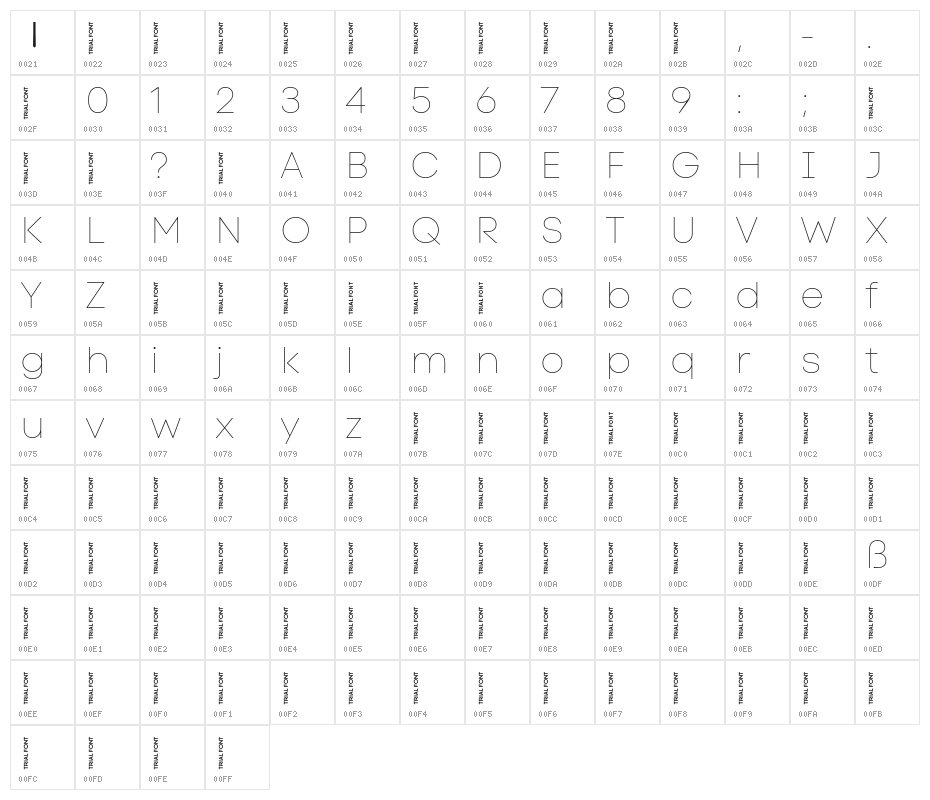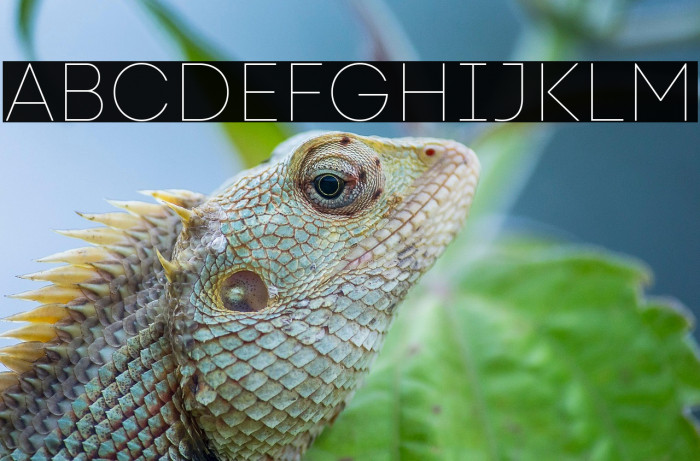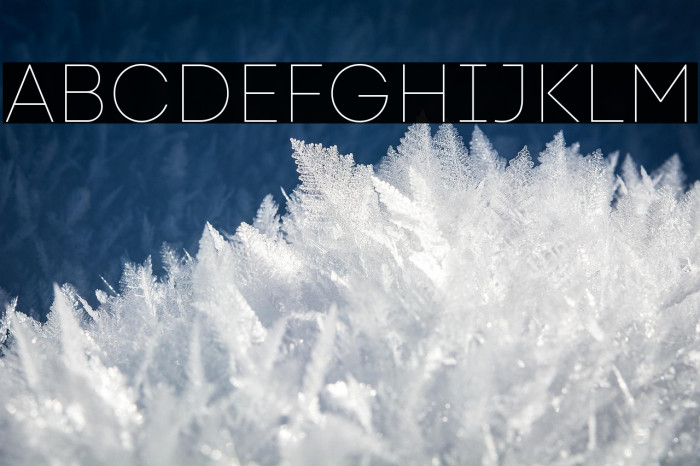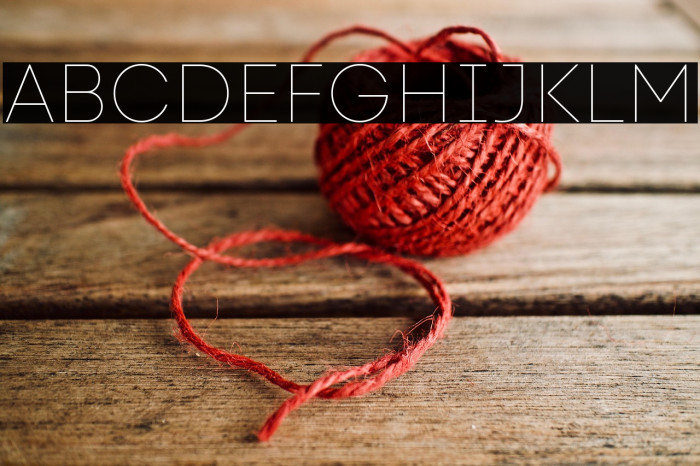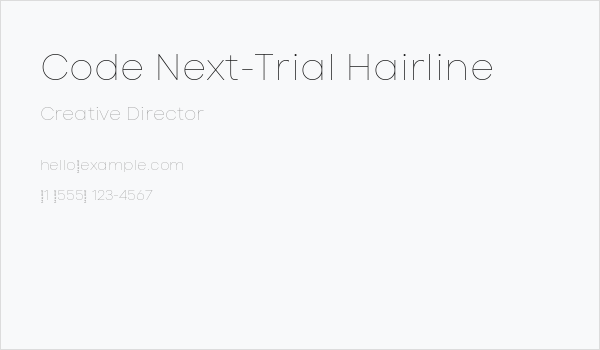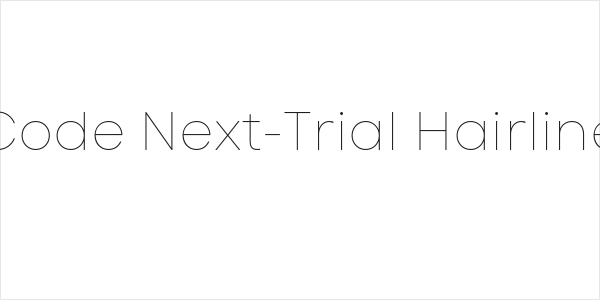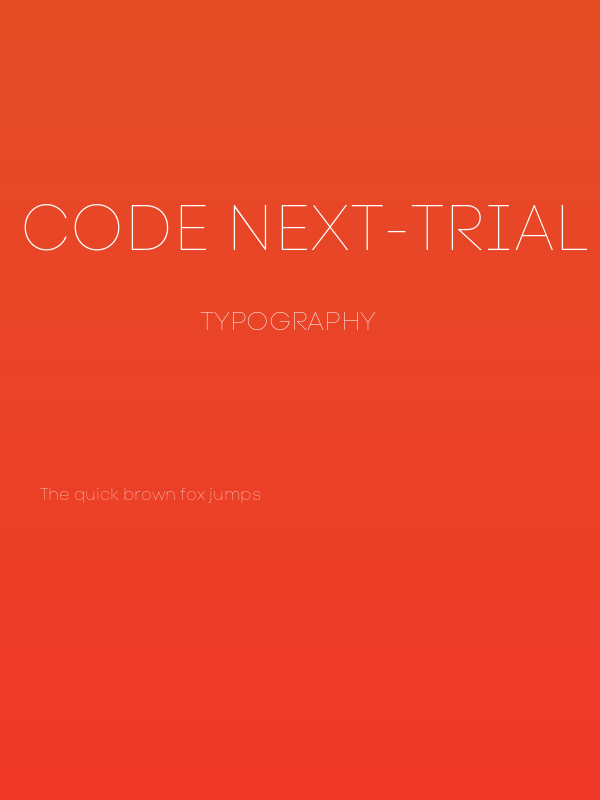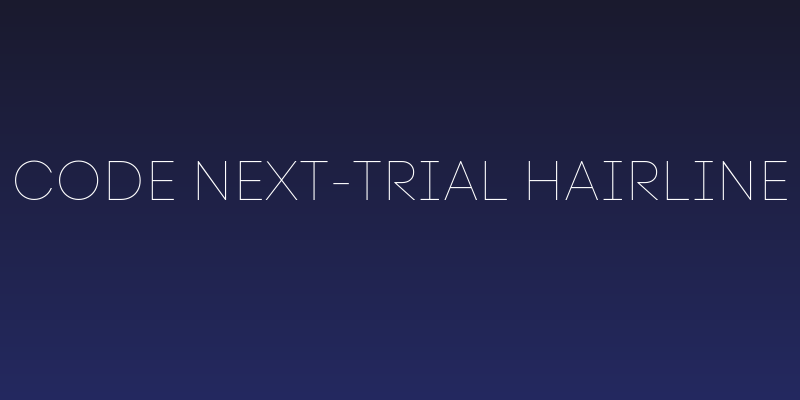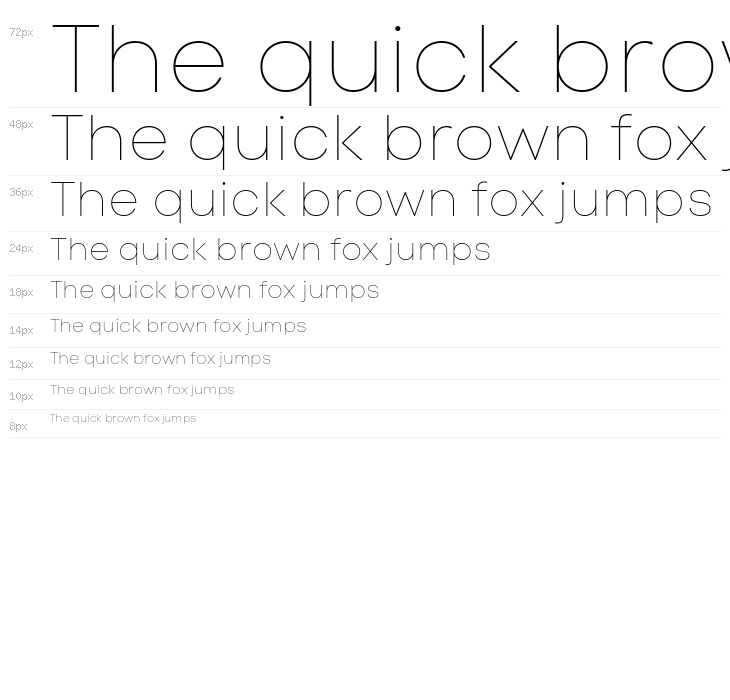
Code Next-Trial Hairline Font
Code Next-Trial Hairline Description
This font features a sleek and minimalist design with thin, consistent strokes that give it a modern and elegant appearance. The characters are well-proportioned, with a geometric structure that enhances readability. The uppercase and lowercase letters maintain a uniform style, while the numerals are clear and straightforward. Special characters are included, matching the overall aesthetic. This font's simplicity and clarity make it versatile for various design applications.